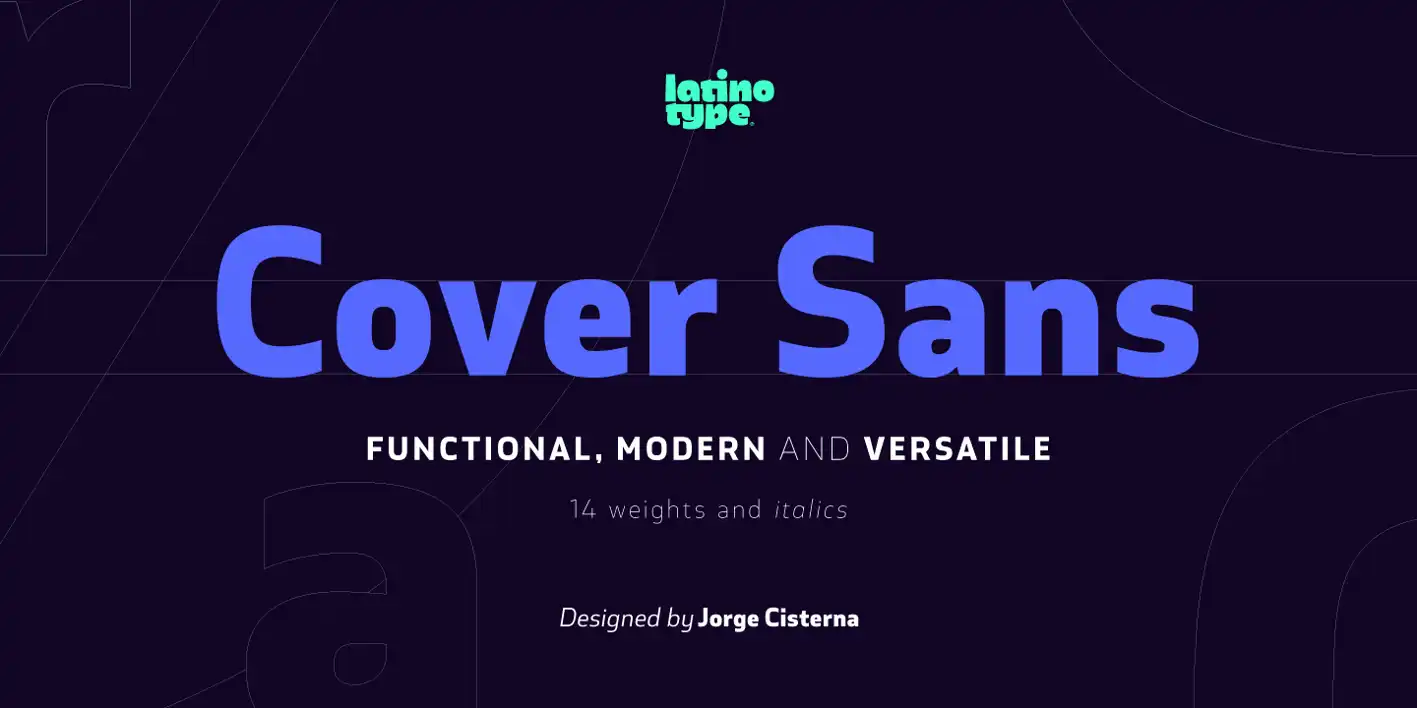
The Cover Sans Font is perfectly designed for numerous editorial and publishing applications including magazine covers, book titles, publishing house branding, editorial headlines, literary journal layouts, newspaper mastheads, article headers, digital publication interfaces, content marketing materials, and media company communications. Its distinctive character makes it particularly effective for publishing companies, media organizations, content creators, and editorial brands seeking to convey journalistic authority, literary sophistication, and editorial excellence in their visual communications and publishing presentations.
What makes the Cover Sans Font incredibly exciting is its masterful optimization for editorial impact and publishing excellence combined with contemporary typographic innovation. This distinguished typeface captures the essence of modern journalism and literary publishing while incorporating sophisticated design elements that ensure optimal performance across today's diverse media landscape. The font's captivating character emerges from its clean editorial letterforms, balanced proportions, and carefully crafted details that create a sense of journalistic credibility and publishing authority, making it perfect for organizations seeking to establish editorial leadership and appeal to literary-minded, information-seeking audiences.
The Cover Sans Font family encompasses multiple weights and styles designed to provide comprehensive editorial branding solutions. The collection typically includes thin, light, regular, medium, bold, and black weights, with many versions offering editorial italic variants that enhance the font's publishing appeal and journalistic character. Some editions may include condensed versions, headline alternates, and editorial elements that provide additional design options for creating unique typographic treatments and publishing-focused brand applications.
Editorial designers and publishing professionals consistently choose the Cover Sans Font Free Download for its exceptional readability and editorial impact. The font features meticulously engineered spacing and kerning that ensures optimal performance across various publishing applications, from detailed article text to large-scale magazine covers. Its robust construction maintains clarity and authority across different sizes and editorial contexts, while the comprehensive character set includes uppercase and lowercase letters, numerals, punctuation marks, and special symbols, along with extensive language support for international publications and global media communications.
The Cover Sans Font represents the evolution of editorial typography, combining publishing heritage with contemporary functionality. Its journalistic aesthetic demonstrates editorial credibility while maintaining the versatility required for diverse publishing applications. The font's remarkable adaptability allows it to work effectively in both traditional print contexts and modern digital publications, ensuring consistent excellence across editorial websites, magazine layouts, publishing materials, and media communications.
Achieve editorial excellence and publishing authority with the journalistic sophistication and editorial credibility of the Cover Sans Font, the ultimate choice for publishing typography excellence.